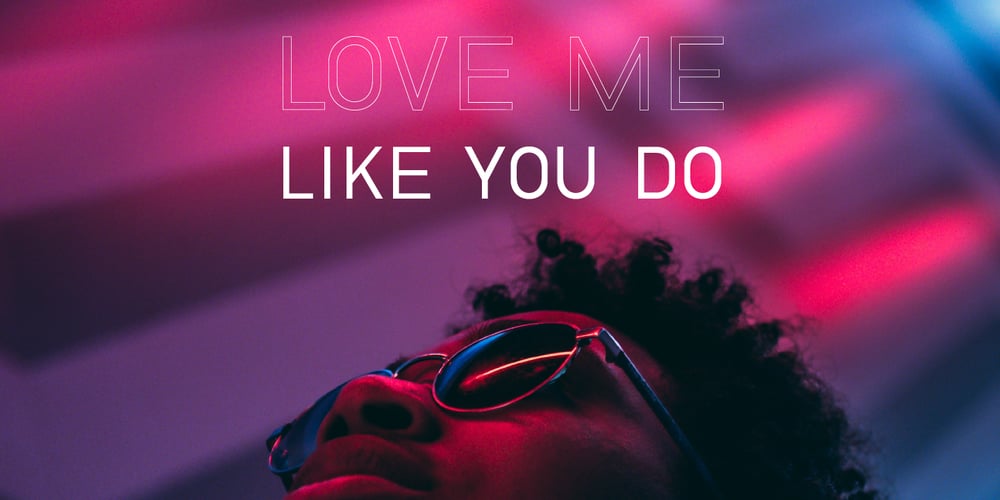
Wafterby
Wafterby font
Wafterby Font Family was designed by Kanda Euatham and published by Paramajan. Wafterby contains 8 styles and family package options. Wafterby is a handsome sans serif typeface family. It comes in eight weights which have a minimal and clean feel. Its design is based on circle and line geometric shapes. It can be used as a cute minimal-style header display or as a stylish text for magazine, blog, corporate branding, packaging, wedding invitation project, etc.